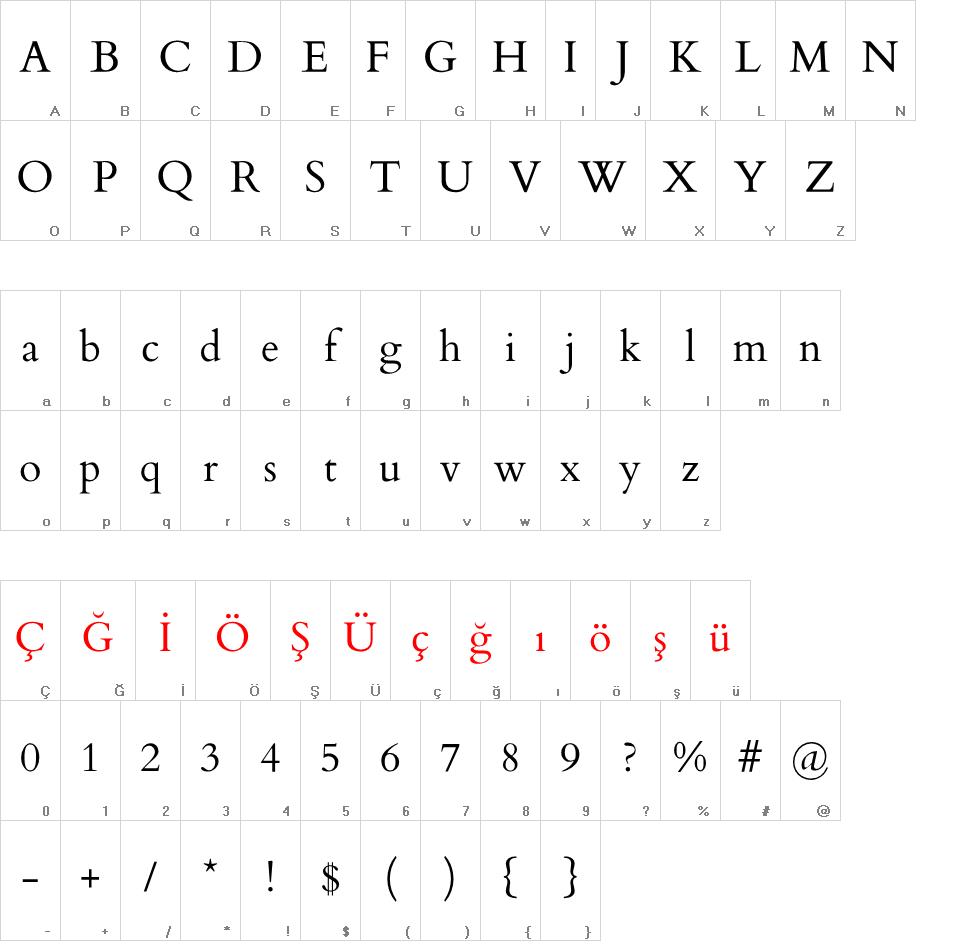
Shahd Serif Font font
This is a modified version of "HSN Shahd Regular.ttf" so that it can support now Latin characters. For the Latin characters I used the font "Cardo-Regular.ttf" as base.